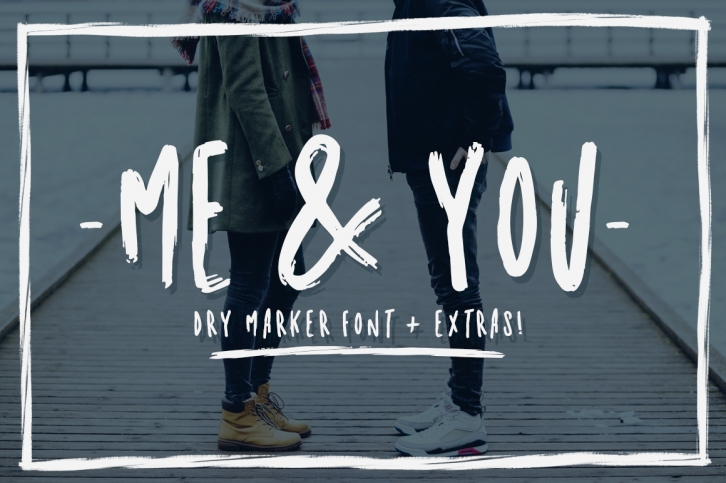
Me & you is a great font that was designed by Latin Vibes. Imagine the amount of combinations you can create using this font! The archive is 4.51 MB and it was released on March 1, 2019. Me & you looks beautiful on wedding invitations, greeting cards, logos, posters, labels, t-shirt designs, logos, business cards and is perfect for use in ink or watercolor works, fashion, magazines, packaging and food menus, children's books and more!